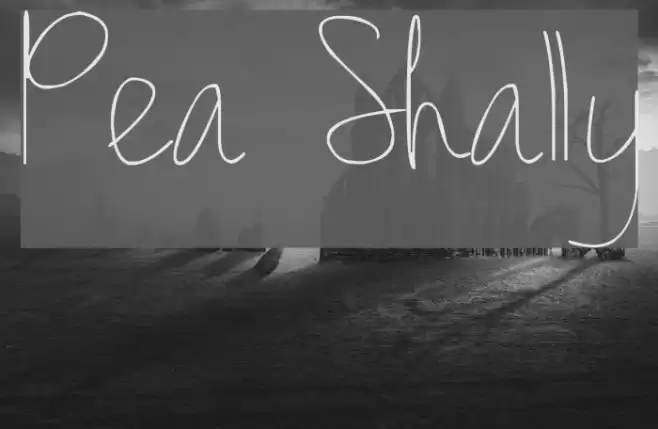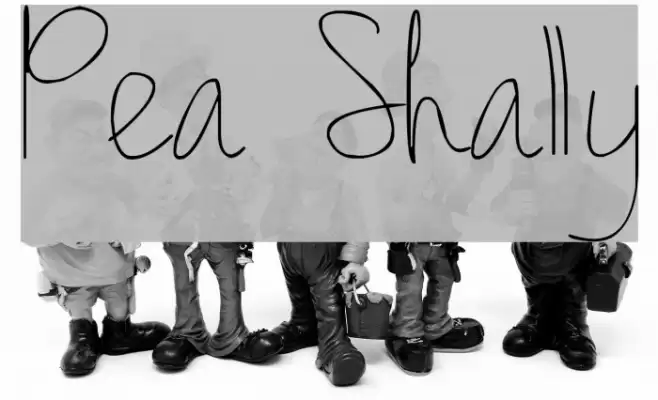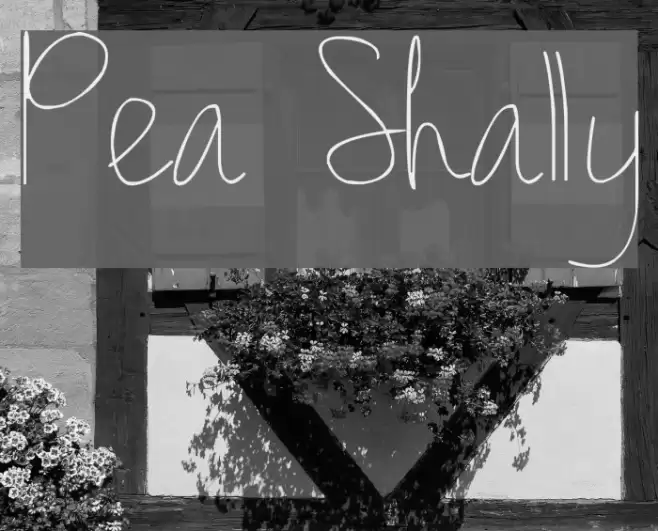
Pea Shally Font
Pea Shally Description
This font features a playful and whimsical handwritten style, characterized by its thin, flowing lines and casual, informal appearance. The letters are slightly irregular, giving it a personal and unique touch, reminiscent of a quick, artistic sketch. The uppercase and lowercase letters maintain a consistent style, with some letters having distinctive loops and curves that add to its charm. The numerals and special characters follow the same playful aesthetic, making it suitable for creative and informal projects.
A playful, whimsical handwritten font with thin, flowing lines from Uncategorized fonts.
- Proposed Projects: Ideal for greeting cards, personal notes, creative invitations, and playful branding projects.
- Weight: Light
- Overall Style: Casual, Artistic
- Use Case: Creative projects, Informal text, Personal branding